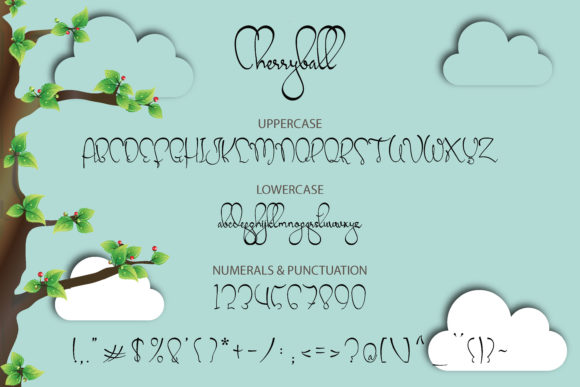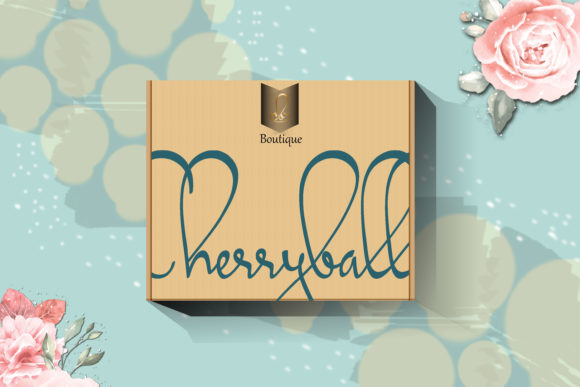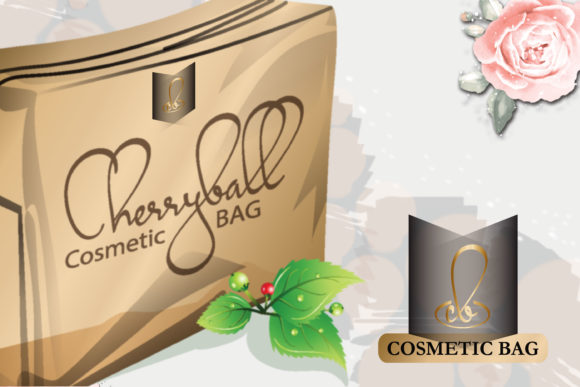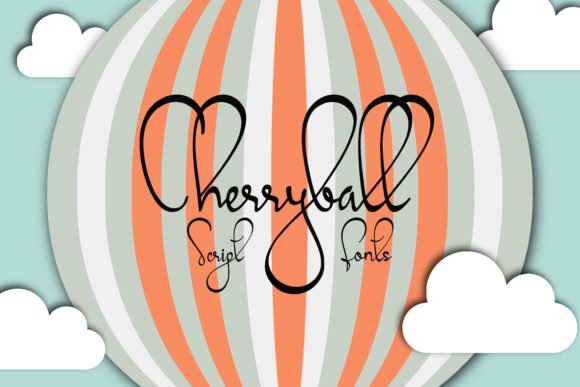
Introduction to Cherryball Font
Cherryball is a cool and fun script font with a unique vibe.
Get inspired by its charming feel .
Key Features of Cherryball Font
Why Choose Cherryball Font?